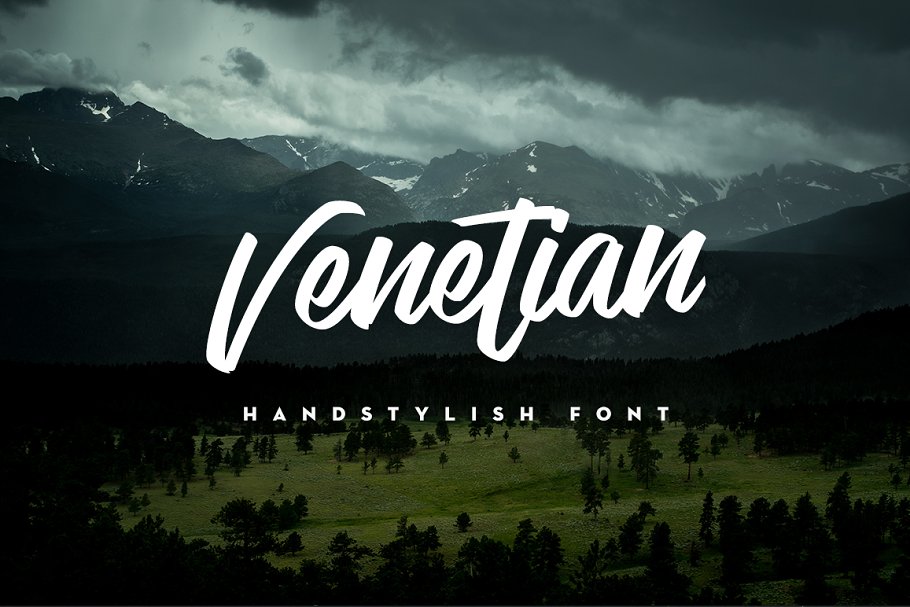
Introducing the captivating and versatile Venetian Handstylish Font! Get ready to elevate your designs with this extraordinary script font. Created by the talented Alif Devan R., this font is the perfect match for logos, headers, titles, prints, and any other creative project you have in mind.
With its stylish and elegant appearance, Venetian Handstylish Font adds a touch of sophistication to your designs. Its unique handwritten style brings a personal and artistic feel, making your text truly stand out. Whether you're designing a wedding invitation, a clothing brand logo, or a social media post, this font will make a lasting impression.
In a nutshell, Venetian Handstylish Font is a must-have for anyone looking to add a creative and personal touch to their designs. Its captivating style and easy installation make it the perfect choice for designers, entrepreneurs, and anyone wanting to make a statement with their text.